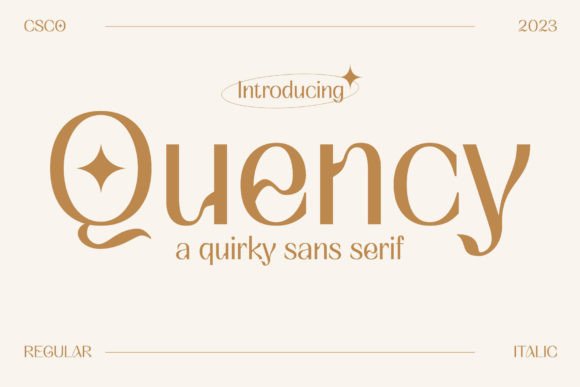
Quency is a whimsical sans-serif font that brings a playful and unique energy to any design project. With its unconventional lines and charming character, Quency stands out in the Display font category, offering a fresh alternative for designers looking to add personality to their work. Whether you're working on logos, branding, or creative typography, Quency provides a delightful touch that captures attention. If you're searching for a "Quency font download" or want to explore "download Quency font free," this article will guide you through its features, uses, and how to get started.
Design & Style Analysis
Quency's visual personality is both quirky and refined, making it ideal for projects that require a touch of creativity without sacrificing professionalism. Its letterforms are slightly irregular, giving it an organic feel that feels handcrafted rather than machine-made. The weight and spacing are balanced, allowing it to work well in both large-scale displays and smaller text blocks.
Letterforms
The letterforms of Quency are distinctive, with exaggerated curves and subtle variations in stroke thickness. These details make it stand out in a sea of more rigid typefaces. The lowercase letters have a friendly, approachable look, while the uppercase characters add a sense of drama and flair.
Weight
Quency comes in a range of weights, from light to bold, allowing for flexibility in different design contexts. The lighter weights are perfect for headings and titles, while the heavier variants can be used for emphasis or as a focal point in a layout.
Spacing
The spacing in Quency is carefully considered, ensuring that each character has enough room to breathe without appearing cramped. This makes it highly readable, even at smaller sizes, and suitable for a variety of applications.
Best Uses for Quency
Quency is a versatile Display font that works well in a wide range of design scenarios. Here are some of the best uses for this unique typeface:
Quency for Logo Design
Quency is an excellent choice for logo design, especially for brands that want to convey a sense of fun and creativity. Its playful style adds a personal touch that can help differentiate a brand from competitors.
Quency for Branding
When building a brand identity, Quency offers a fresh and memorable option. It works well in both digital and print media, making it a great fit for packaging, business cards, and promotional materials.
Quency for Wedding Invitations
For wedding invitations, Quency adds a whimsical and elegant touch. Its unique character can enhance the overall aesthetic of the design, making it a popular choice among couples looking for something different.
Font Pairing & Combinations
Pairing Quency with other fonts can create dynamic and visually interesting designs. Here are a few effective combinations:
One approach is to pair Quency with a serif font for contrast. This creates a balance between the playful nature of Quency and the traditional elegance of serif typefaces. Another option is to use it alongside a clean, modern sans-serif for a more contemporary look. What fonts pair well with Quency? Consider experimenting with different combinations to find what works best for your project.
For a more dramatic effect, try using Quency with a script font. This combination can add a sense of movement and fluidity to your design. When selecting complementary fonts, keep in mind the mood and tone you want to convey. A successful pairing should enhance the overall message of your design without overwhelming it.
When comparing Quency to similar fonts, consider what sets it apart. While many Display fonts aim for sophistication, Quency leans into a more whimsical and approachable style. "Quency vs" other fonts often highlights its unique character and versatility. By understanding these differences, you can make more informed decisions about which typefaces to use in your projects.